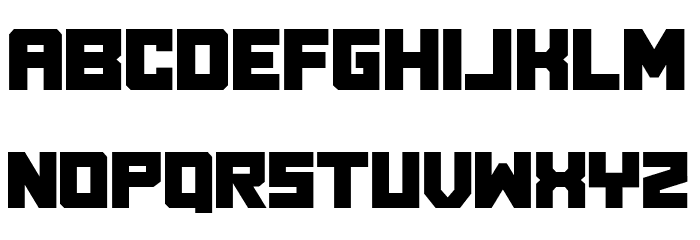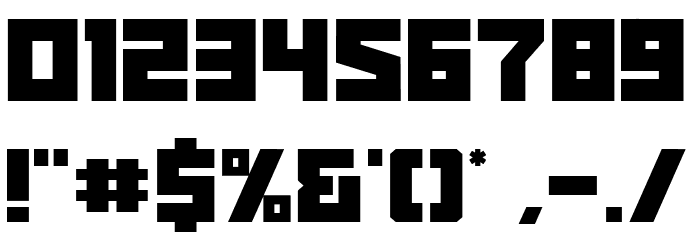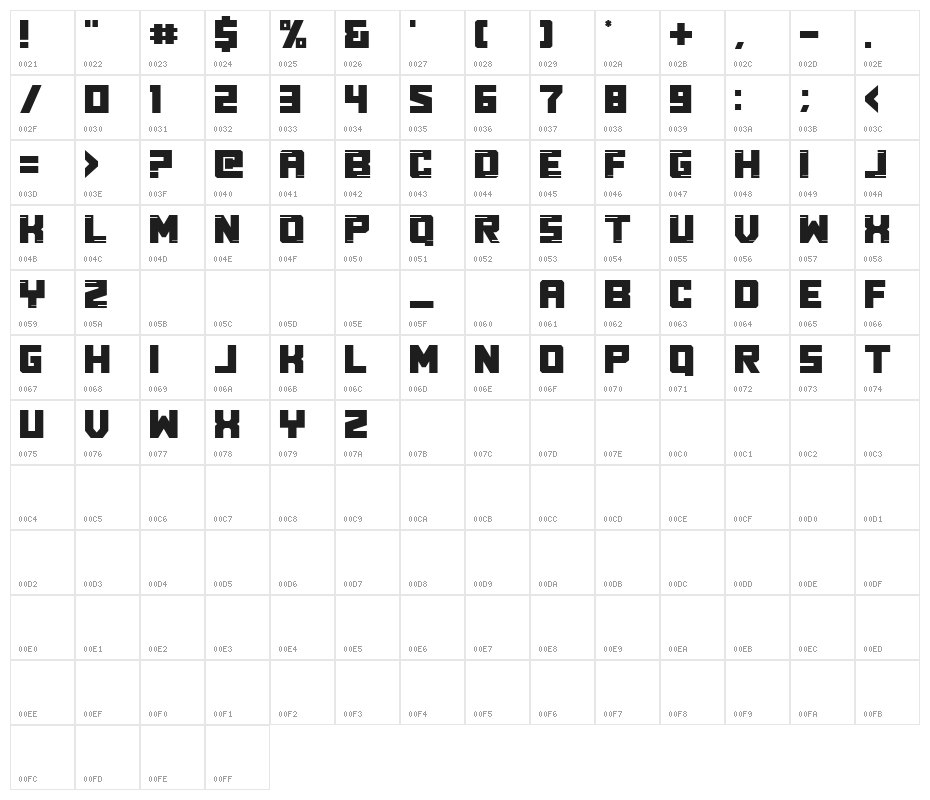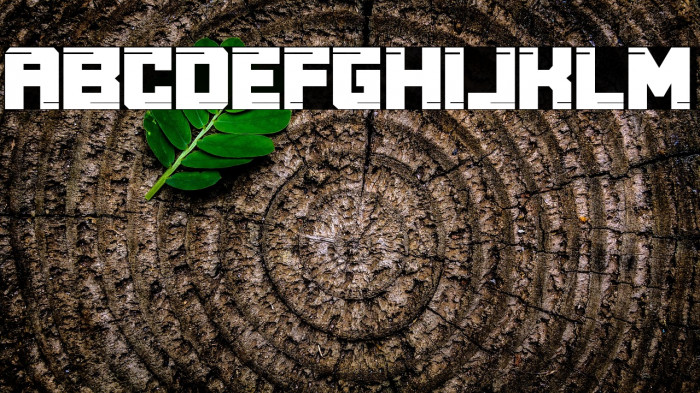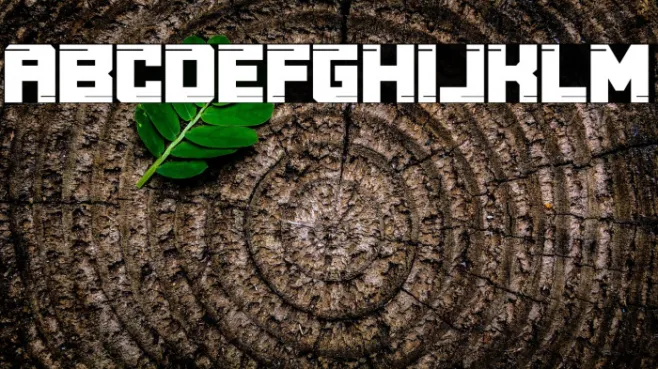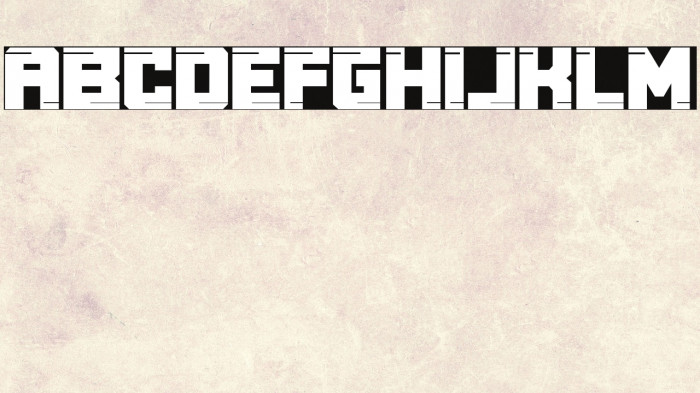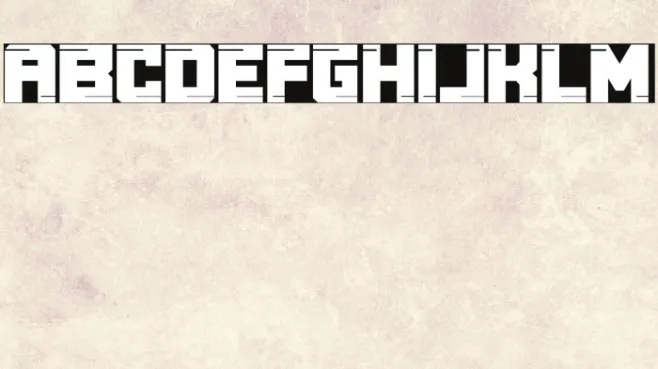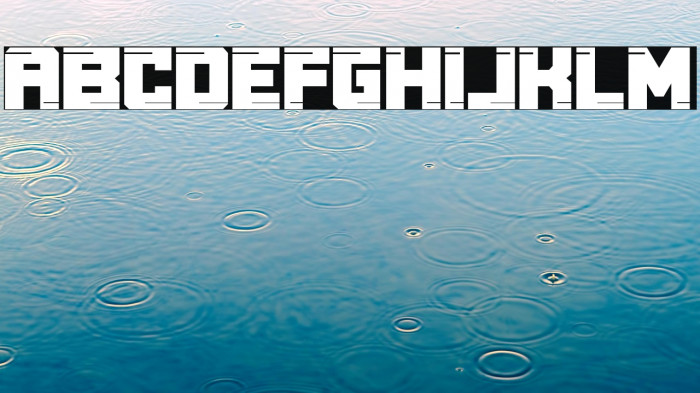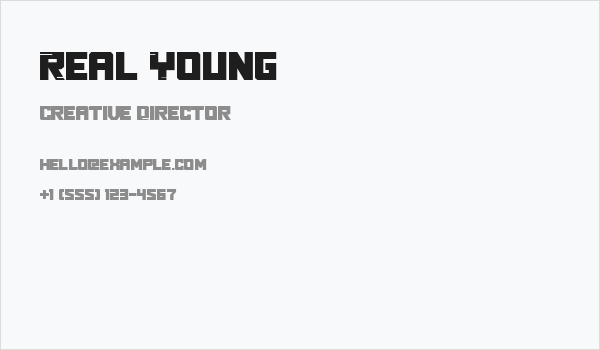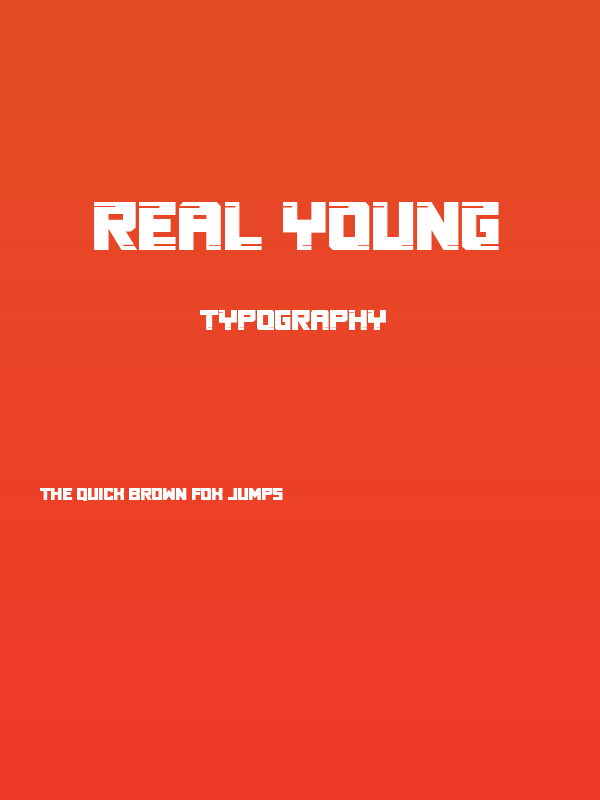
Real Young Font
This font features a bold, geometric design with a strong emphasis on angular shapes and sharp edges. The characters are blocky and robust, giving a futuristic and digital feel. The uppercase and lowercase letters maintain a consistent height, contributing to a uniform appearance. The numbers and special characters follow the same design principles, ensuring cohesion across all elements. This font's striking style makes it ideal for attention-grabbing headlines and modern digital interfaces.
A bold, geometric font with angular shapes and a digital feel.
- Font: Real Young
- Proposed Projects: Ideal for video game titles, tech branding, futuristic posters, and digital interfaces.